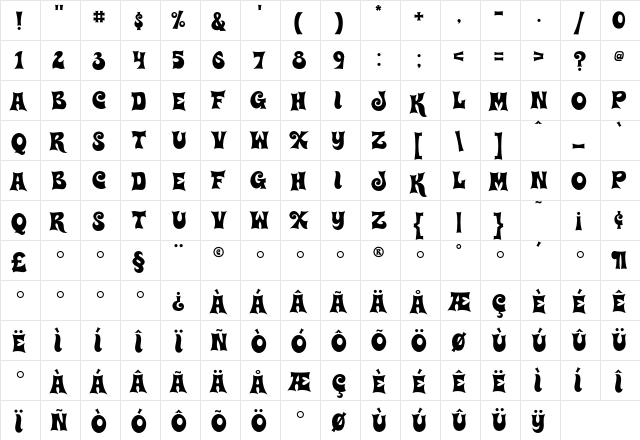
Haulnhouse Solid
Design Context for Haulnhouse Typeface
Haulnhouse is a composed and adaptable typeface that performs quietly and consistently across a wide range of design contexts.